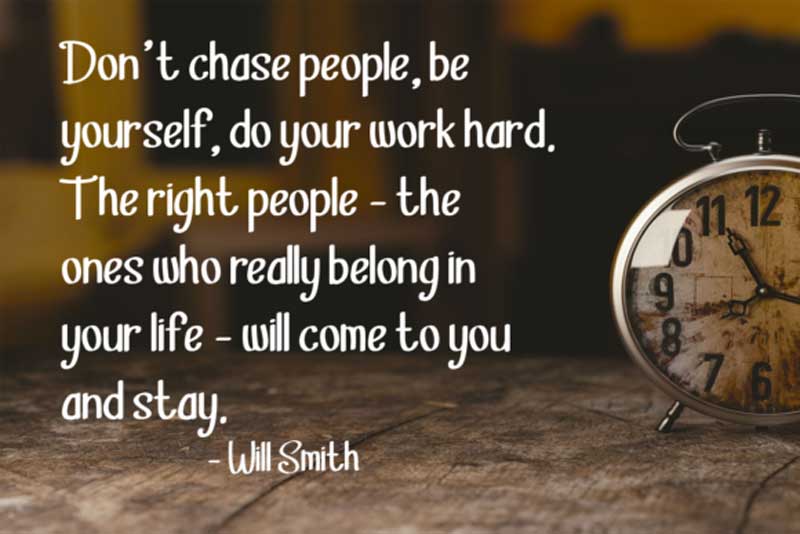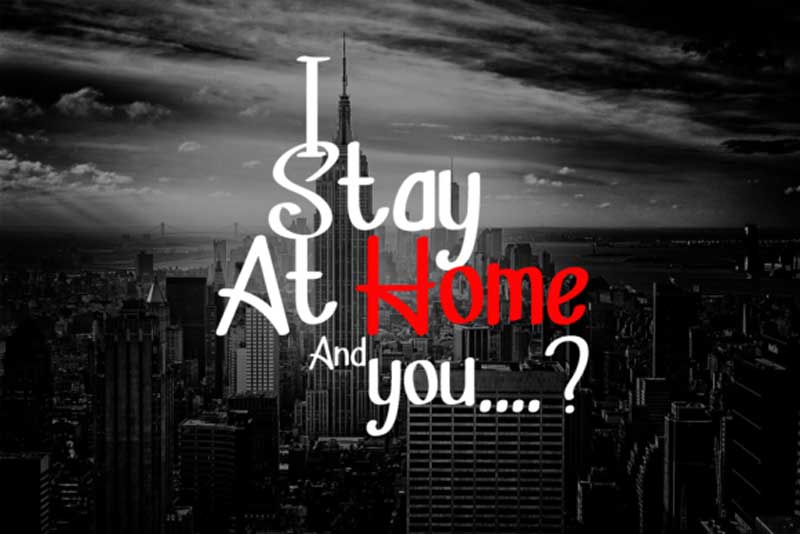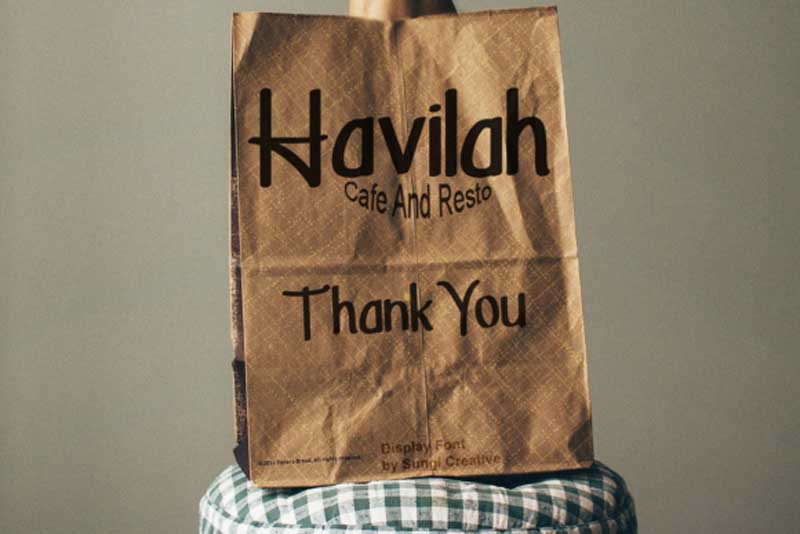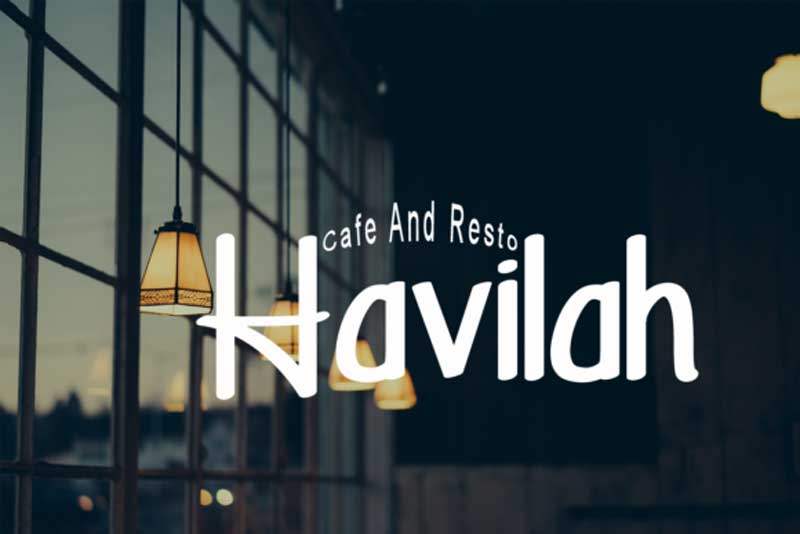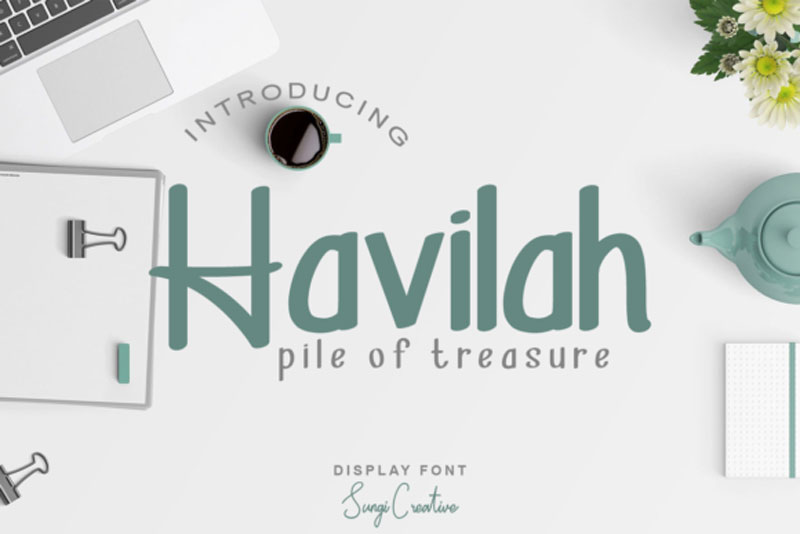
Havilah Font Family
Introducing The Creativefabrica Havilah Font Family. Havilah embodies fun, quirkiness and authenticity. This enchanting display font will turn any creative idea into a true standout.